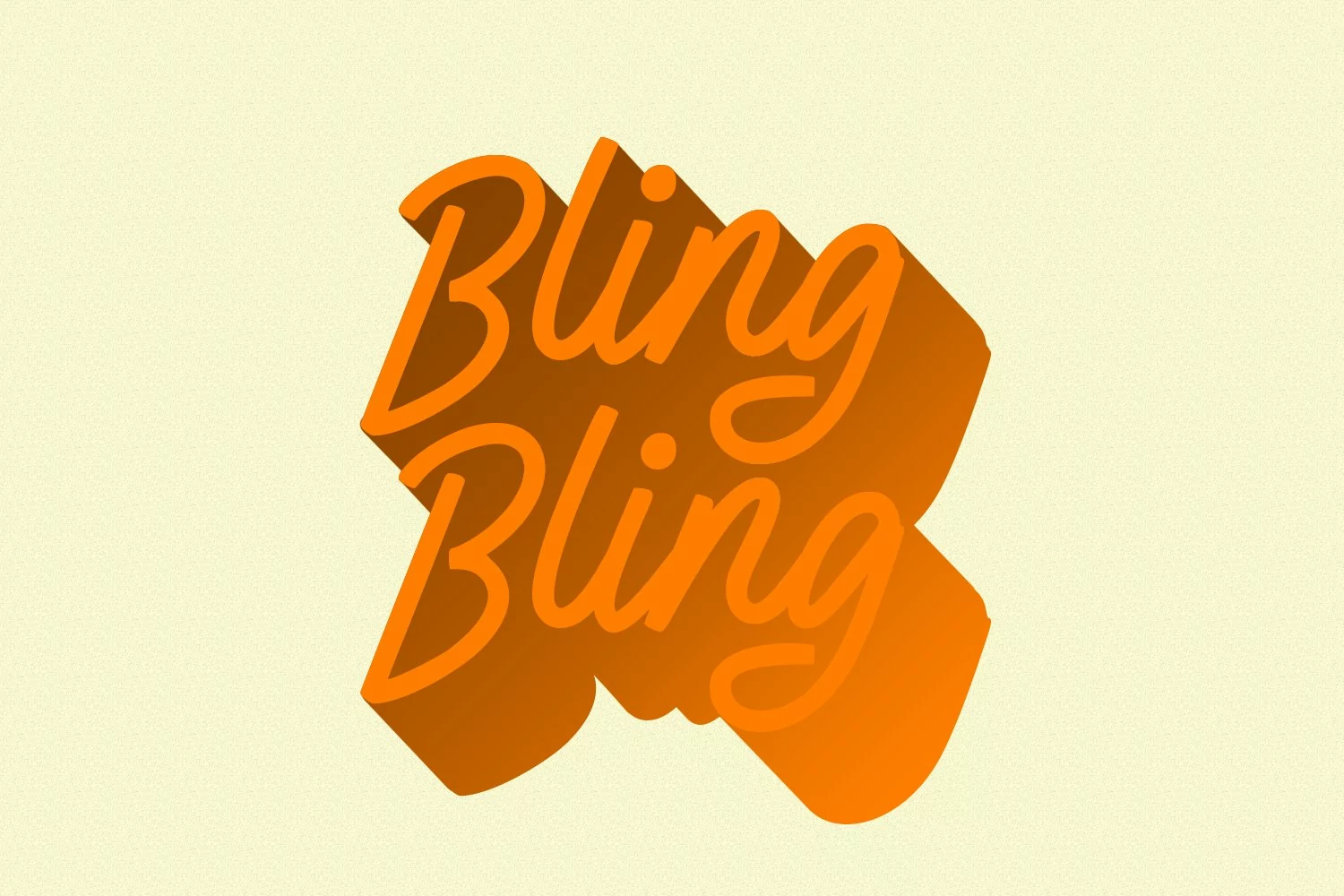
Slashty is a modern casual handwritten script font. With medium mono-line stroke, fun character with a bit of ligatures and stylistic alternates. To give you an extra creative work. Slashty font support multilingual more than 100+ language. This font is good for logo design, Social media, Movie Titles, Books Titles, a short text even a long text letter and good for your secondary text font with sans or serif. Make a stunning work with Slashty font.